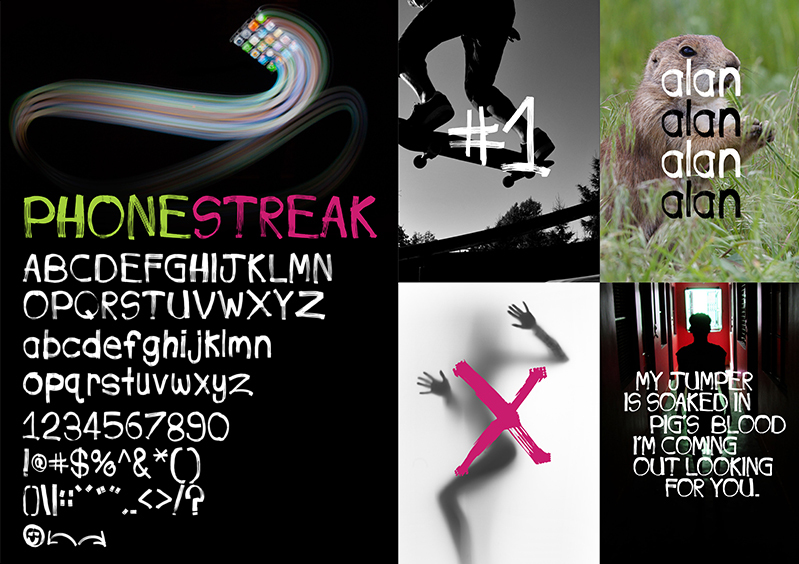
PhoneStreak
Font designed by Marcus Byrne using iPhone light in Darkness.
Organic Font designed using iPhone light streaks from hand movements shot with Canon Eos 5D in the dark. I then had the 'Z' printed in 3D!